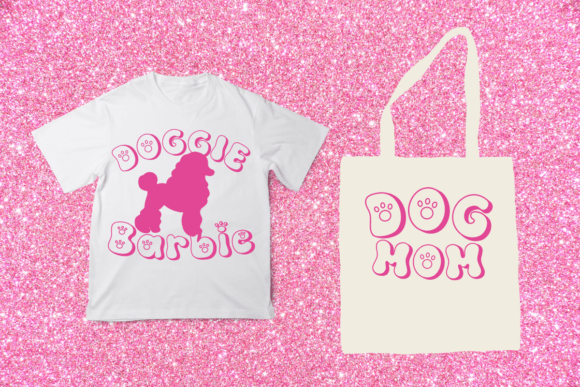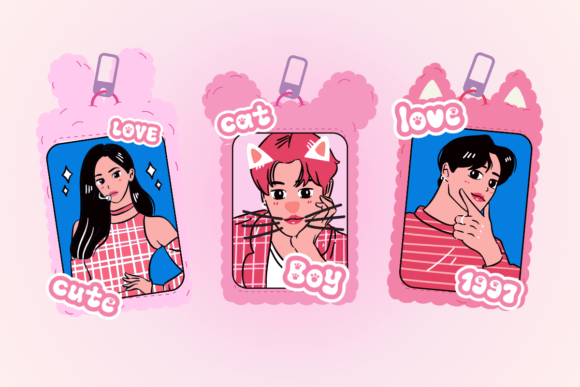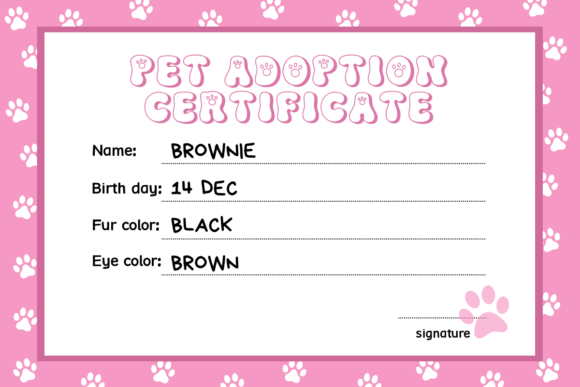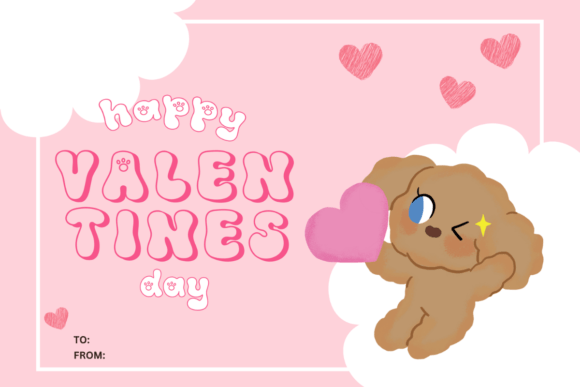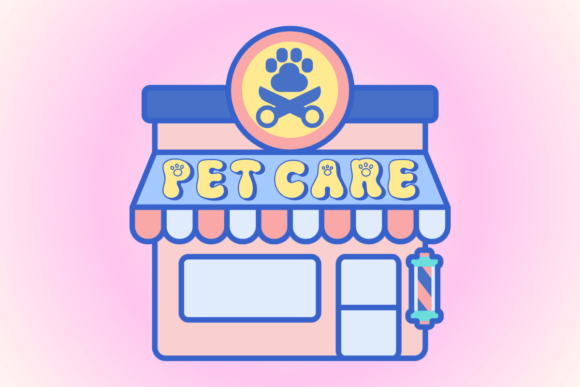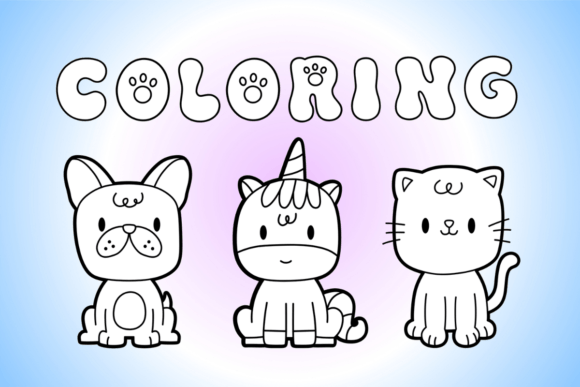
Unleash the Joy of Creativity with the Cat and Dog Font
As a designer, there’s nothing quite like the thrill of bringing a new project to life. You’ve poured over inspiration, crafted a vision, and finally, it’s time to bring it all together. But, what if you could add an extra sprinkle of magic to your design? Introducing the Cat and Dog Font – a delightful, retro-groovy font that’s sure to captivate your audience.
With its adorable paw gimmick and playful touch, the Cat and Dog Font is purr-fect for any project that features cats or dogs. Whether you’re designing party invitations, flyers, or social media graphics, this font is sure to bring a smile to your viewer’s face. As a designer, you know that the right font can make all the difference in conveying your message and captivating your audience – and the Cat and Dog Font is a valuable addition to any designer’s toolkit.
Cat and Dog Font Key Features
- Font Family: Cat and Dog is a sans-serif font family.
- Character Set: Supports a wide range of characters, including Latin, Cyrillic, and Greek alphabets.
- Size: Available in 6 font weights, ranging from Thin to Black.
- Unique Characteristics: Features a unique, playful design with a mix of rounded and geometric shapes, making it suitable for modern and creative projects.
Designer Review: Cat and Dog Font
Overall, I’d say that Cat and Dog Font has its moments, but it’s a bit of a mixed bag. Let’s start with the positives.
- ✨ Playful vibe: I love the whimsical feel of this font. It’s perfect for a children’s book or a pet-themed project.
- ✨ Good for titles: The font’s bold lines and rounded edges make it a great choice for titles and headings.
- ✨ Unique: It’s not every day you come across a font that combines cats and dogs in such a fun way.
Now, let’s talk about the limitations.
- ⚠️ Limited character set: The font only includes uppercase and lowercase letters, numbers, and a few punctuation marks. If you need to use special characters or accents, you might be out of luck.
- ⚠️ Not ideal for large blocks of text: The font’s playful feel can get a bit overwhelming if used extensively. It’s best to use it sparingly to add visual interest.
Overall, I’d say that Cat and Dog Font is a fun, quirky choice for specific projects. It’s not a go-to font for everyday use, but it’s definitely worth considering if you need a playful vibe.
Use the Cat and Dog Font to add a playful touch to your designs. Experiment with different font sizes and styles to create a unique look. You can also pair the font with other playful fonts or graphics to create a fun and engaging design.
The Cat and Dog Font is perfect for:
- Children’s book covers and illustrations
- Playful blog posts and social media graphics
- Fun and creative presentations
- Marketing materials for pet-related businesses